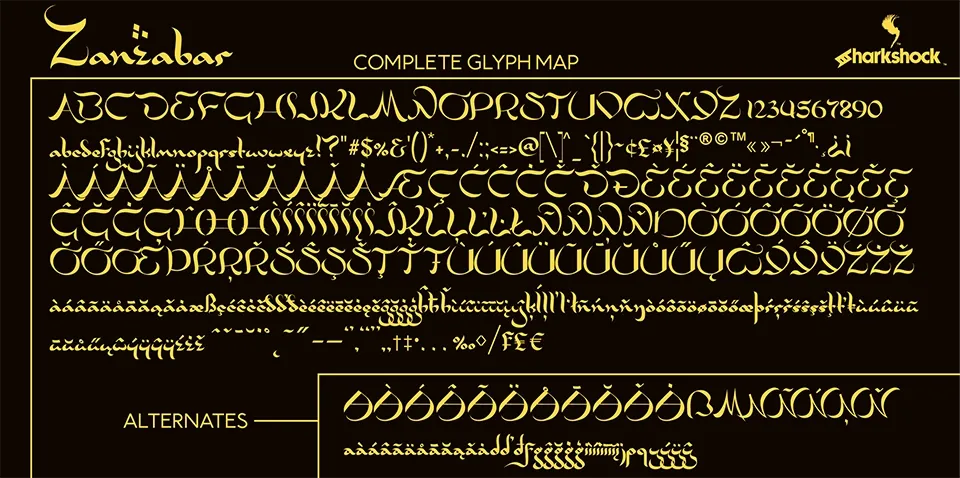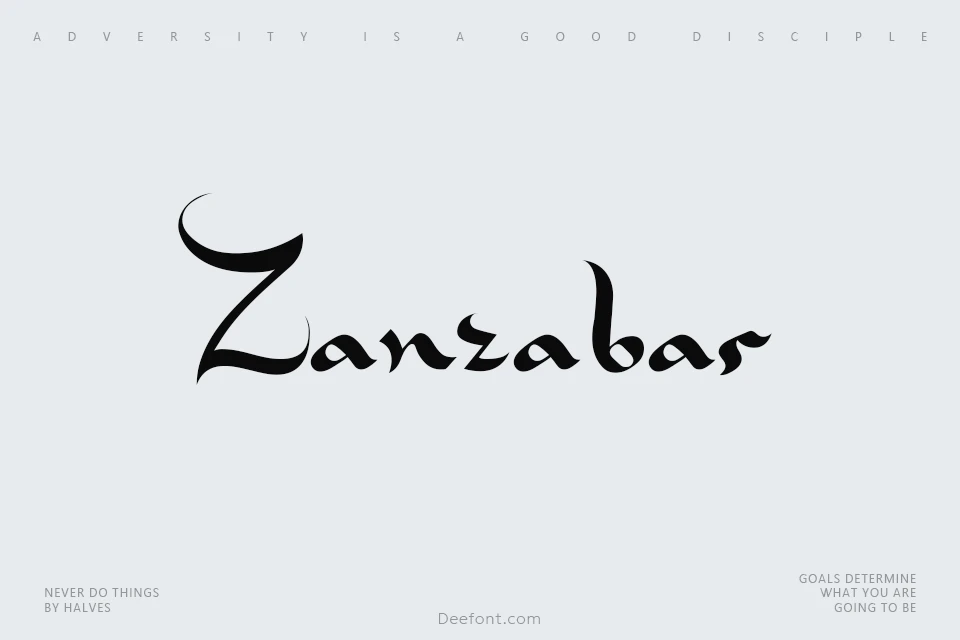
Zanzabar Font
Zanzabar Font is a striking display typeface that draws inspiration from the enchanting beauty of Middle Eastern calligraphy. Characterized by its elegant contrasts, the font features tall uppercase letters paired with delicately smaller lowercase characters, creating a visually captivating rhythm. Its brush-like strokes and whimsical design make it ideal for a variety of creative applications, including ethnic restaurant branding, children’s book titles, and atmospheric movie posters. The font’s unique aesthetic not only adds a touch of cultural flair but also enhances the overall visual appeal of any project, making it a versatile choice for designers seeking to evoke a sense of exotic elegance.